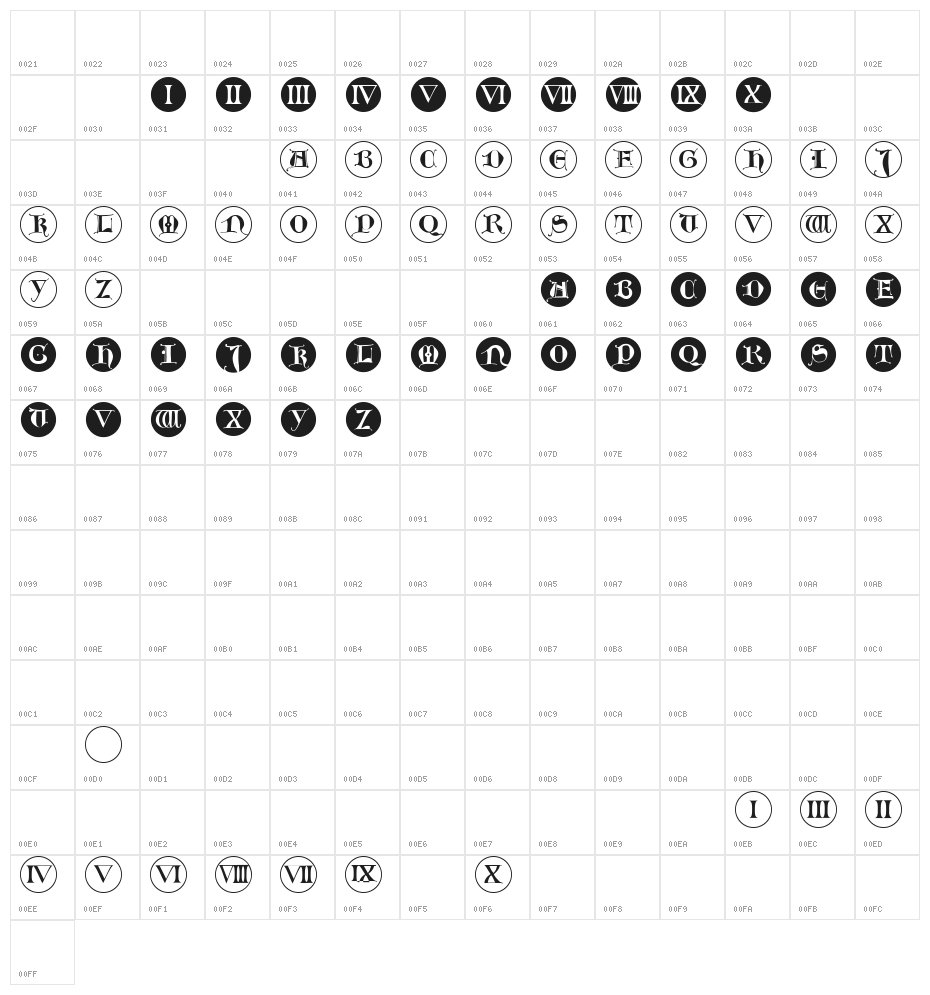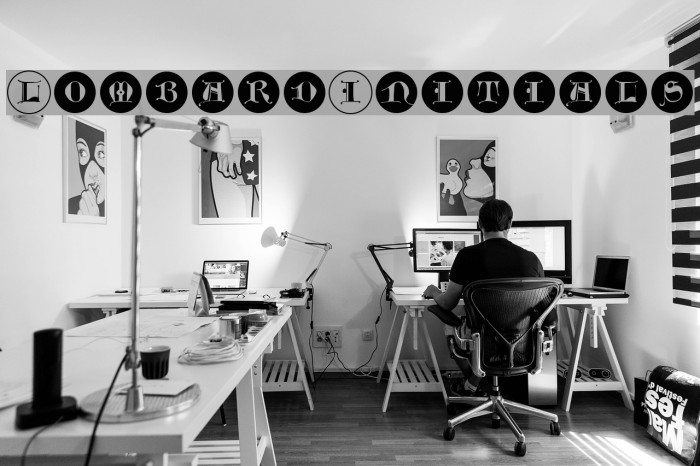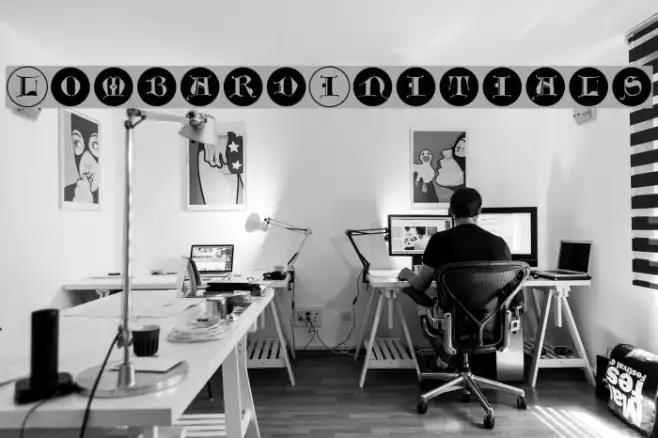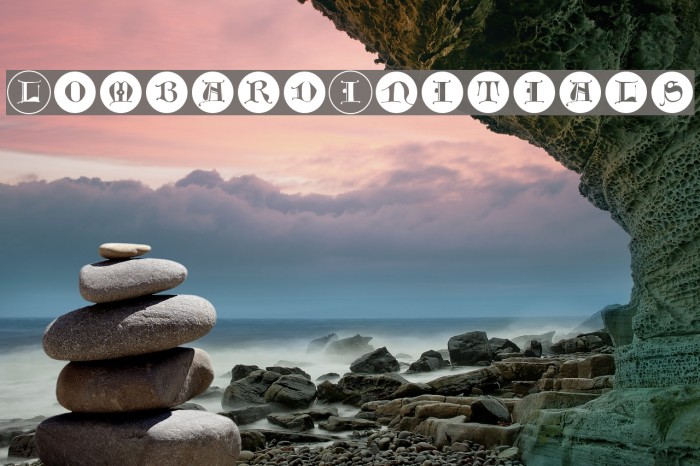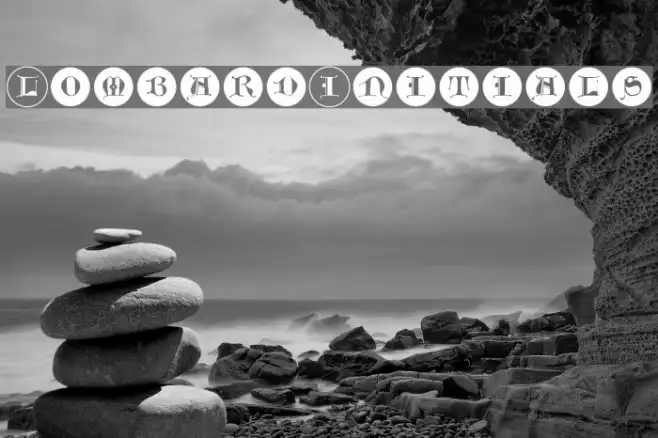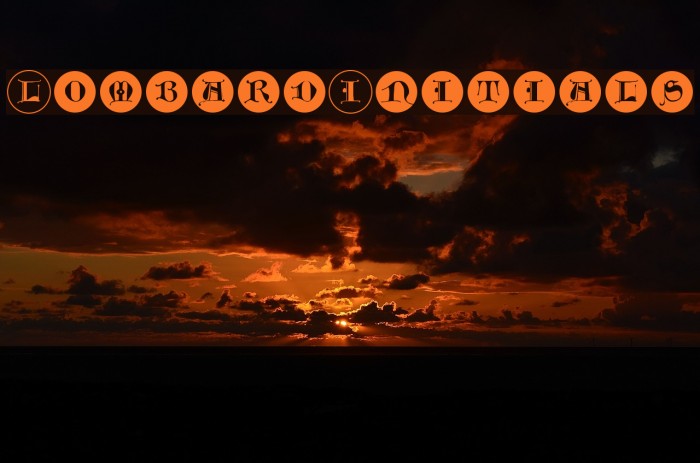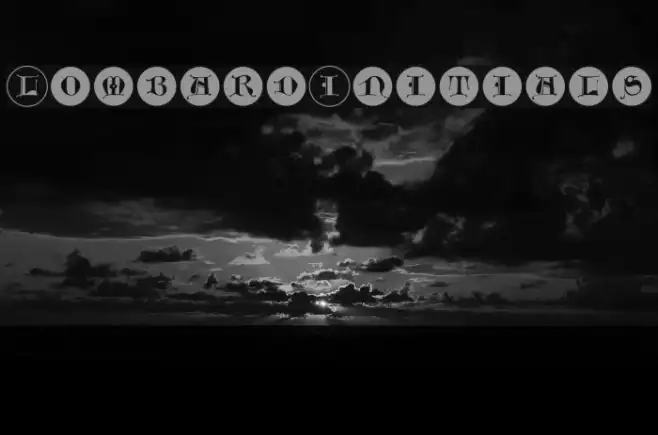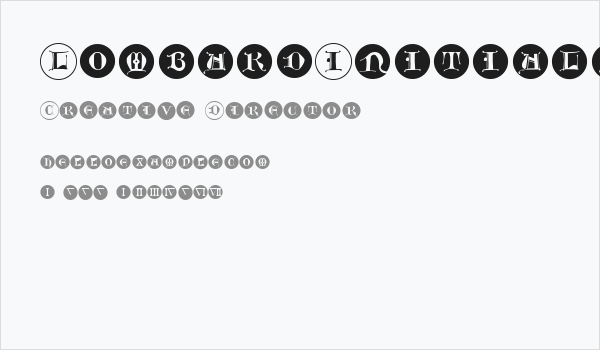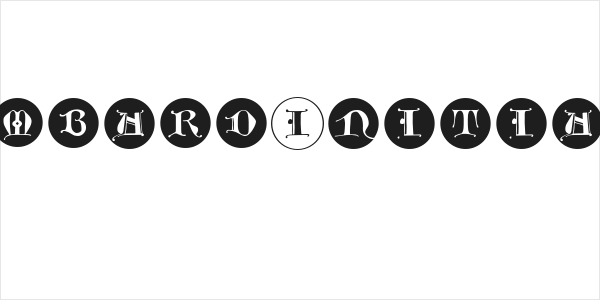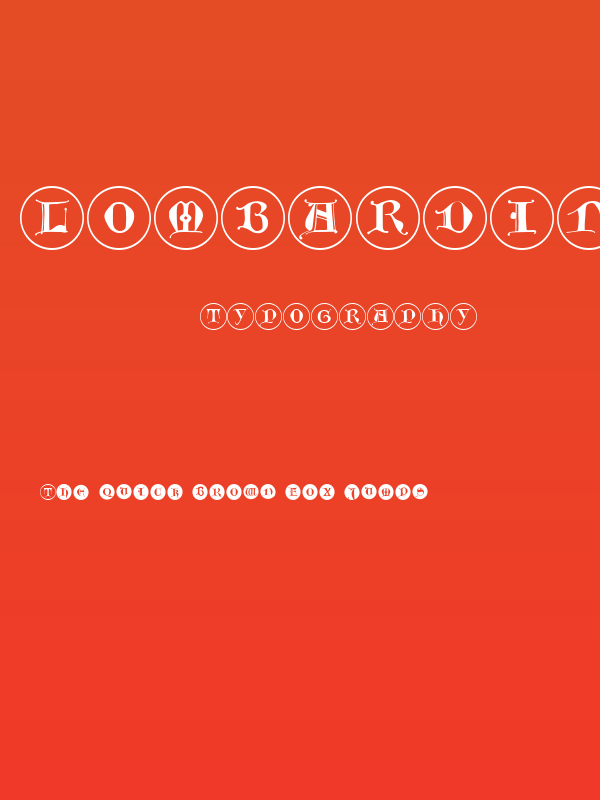
LombardInitials Font
LombardInitials Description
This font features a decorative style with a historical and ornate appearance, reminiscent of medieval script. Each character is encased in a circle, adding a unique and cohesive design element. The uppercase letters are stylized with intricate details, showcasing a blend of sharp and rounded edges that evoke a sense of elegance and tradition. The font's bold strokes and high contrast between thick and thin lines enhance its visual impact, making it suitable for decorative purposes. The use of Roman numerals adds a classical touch, further emphasizing its historical inspiration.
| Use Case | Headlines, Logos, Decorative elements |
| Proposed Projects | Ideal for projects requiring a historical or classical theme, such as invitations, certificates, book covers, or branding for luxury products. |